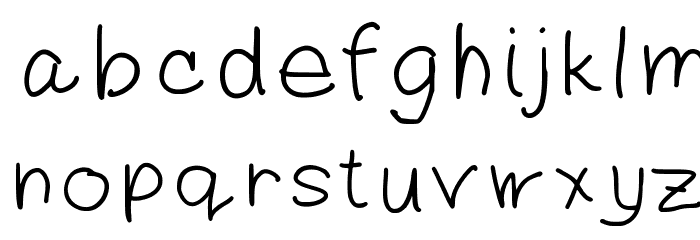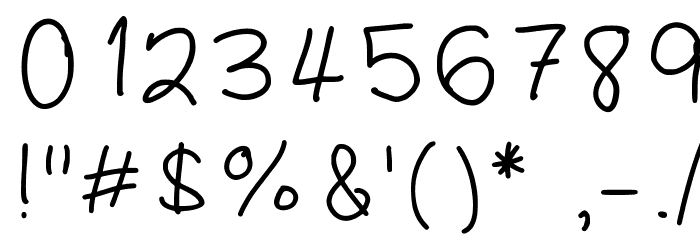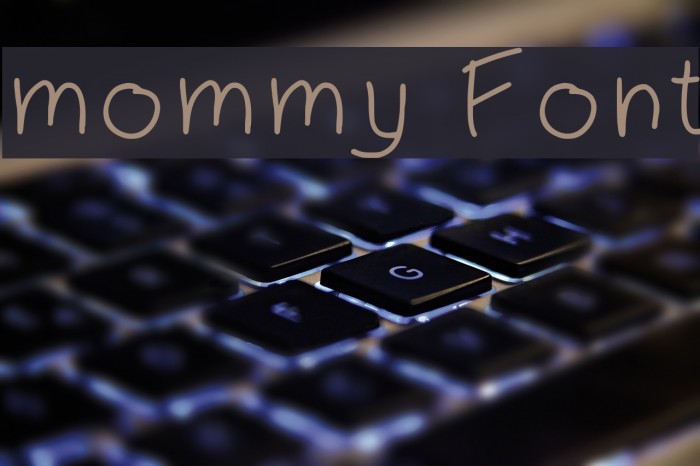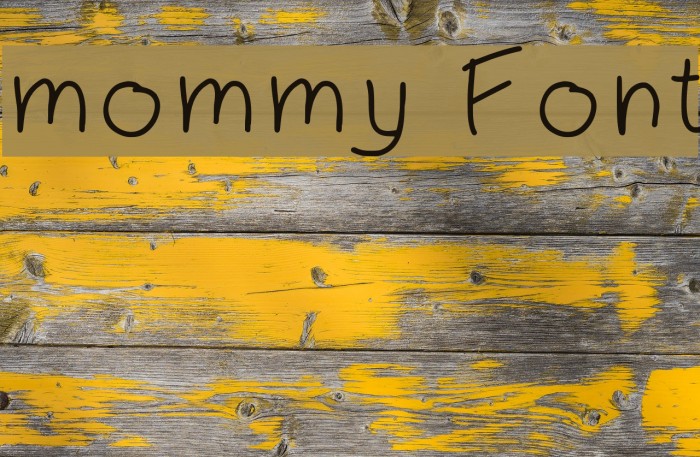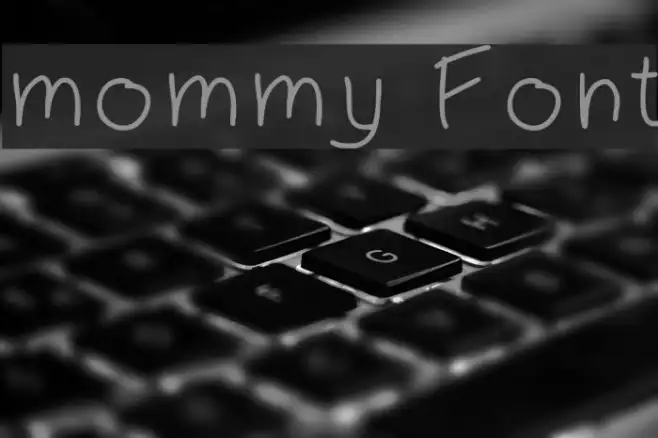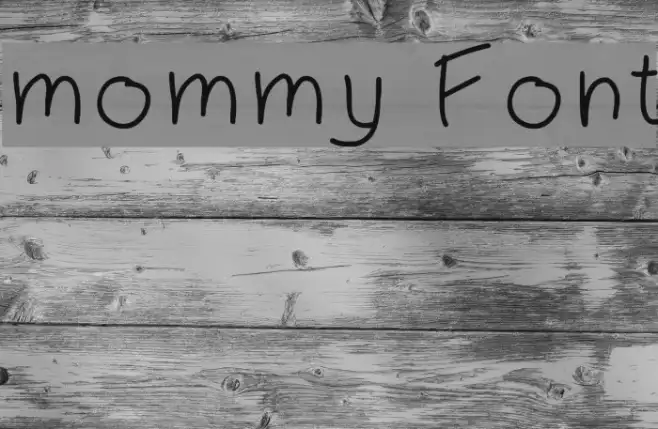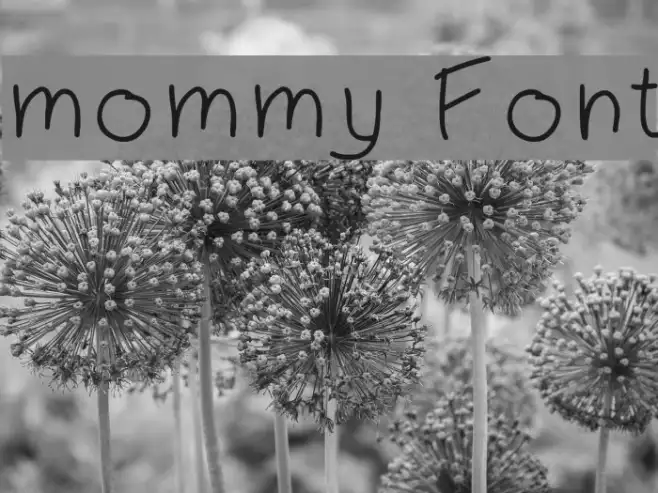
mommy Font
This playful and whimsical font features a handwritten style that exudes a casual and friendly vibe. The characters are slightly irregular, giving it an authentic, personal touch. The strokes are smooth and rounded, with a consistent flow that mimics natural handwriting. The uppercase and lowercase letters maintain a uniform height, while the numerals and special characters blend seamlessly into the overall design. This font is perfect for projects that require a touch of informality and warmth, such as children's books, greeting cards, and personal blogs.
A playful, handwritten font with a casual and friendly vibe.
- Proposed Projects: Ideal for children's books, greeting cards, personal blogs, and informal invitations.
- Overall Style: Casual
- Use Case: Headlines, Informal text, Personal projects